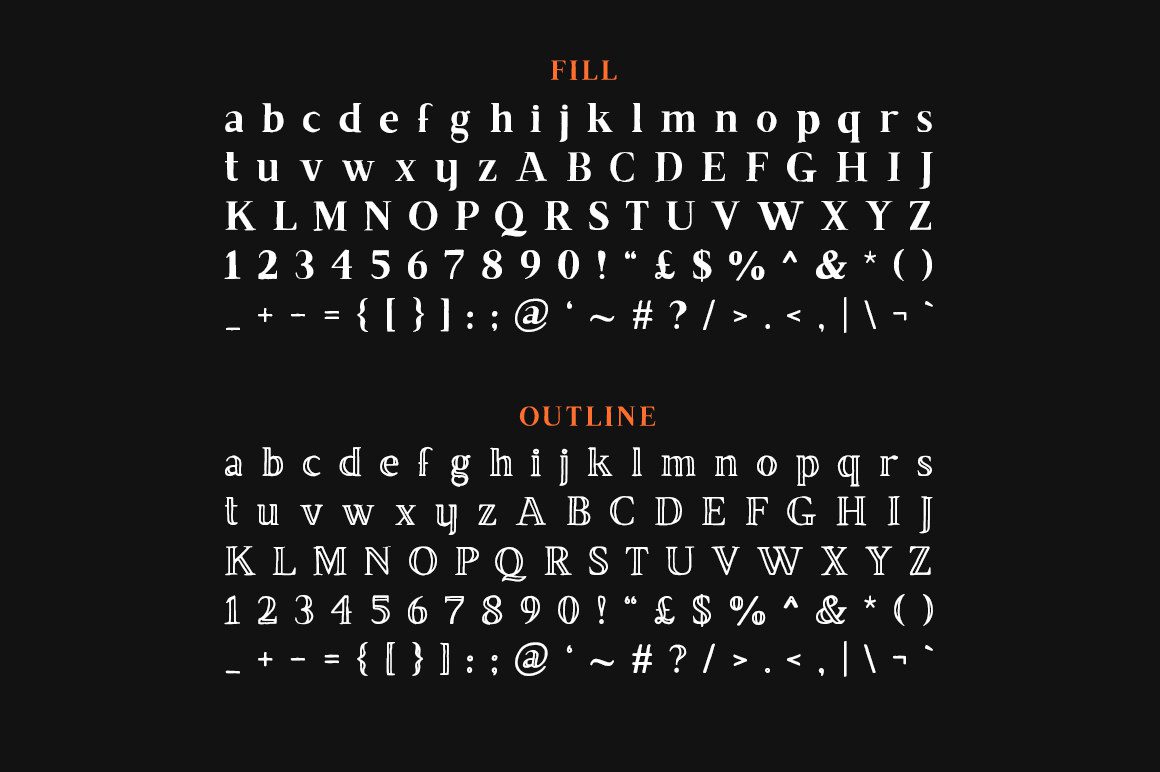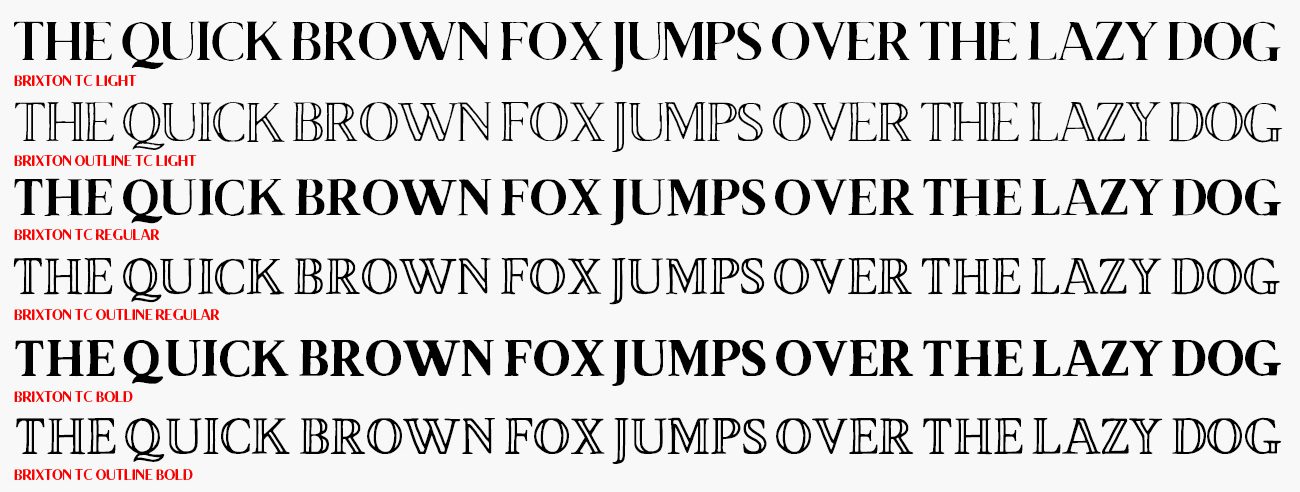
TC Brixton Handmade
Introducing TC Brixton Handmade Edition – a collection of 16 fonts that marries classic refinement with hand-drawn authenticity. This family brings subtle charm and sophistication, perfect for designers seeking a reliable yet organic typeface.
Inspired by 19th-century style, the Brixton Handmade Edition includes a variety of weights with condensed, outline, sans and serif styles, alongside a bunch of stylistic alternates and multilingual support. An ideal choice for branding, packaging, print, and any design project that calls for a blend of vintage appeal and contemporary usability.